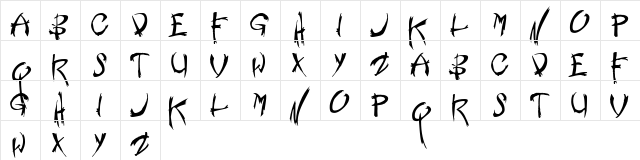
Nemesis Shareware Regular
Design Context for Nemesis Shareware Typeface
Nemesis Shareware is a composed and adaptable typeface that performs quietly and consistently across a wide range of design contexts.